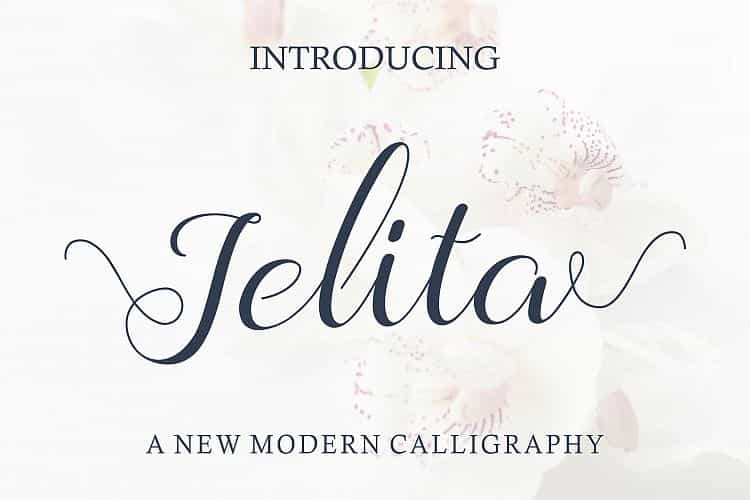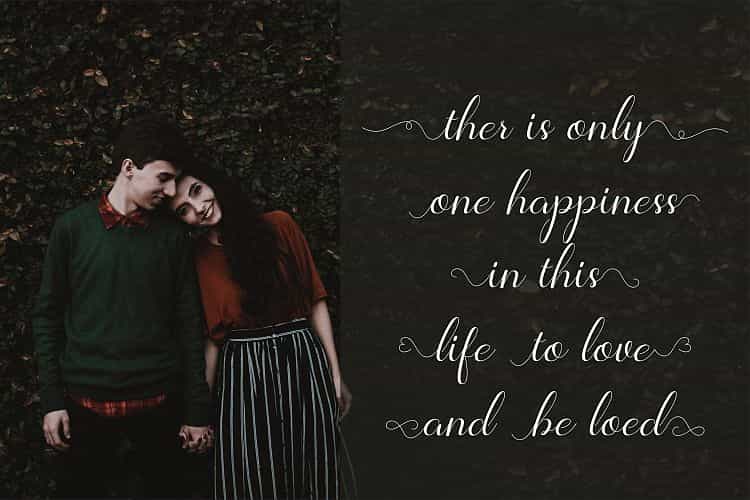
Jelita is a connecting script with a dancing baseline that is meant to create a feeling of elegance and style. It is neat, Yet still feminine and warm at the same time. All designs will have a lovely homemade feel to them with Jelita, a beautiful script font.